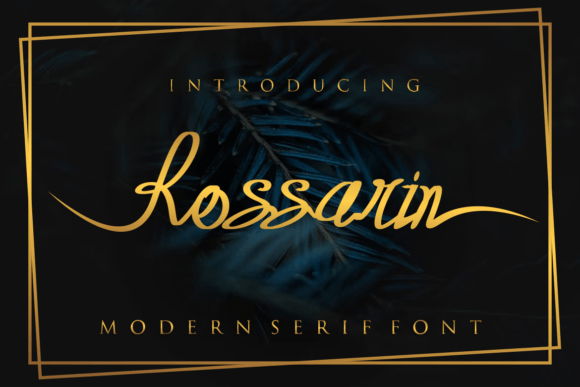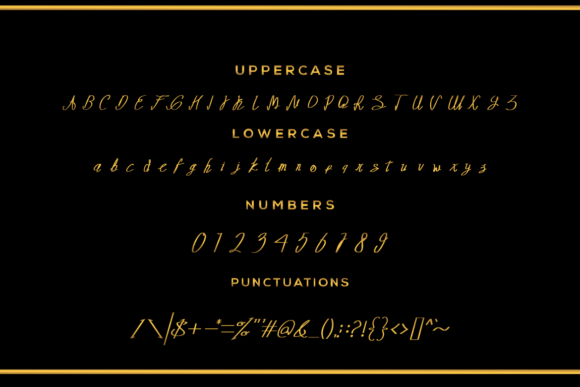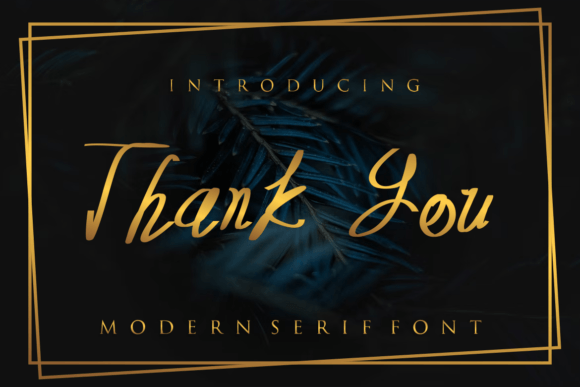
Introduction to Rossarin Font
Rossarin is a modern and trendy handwritten font with a cool vibe.
Key Features of Rossarin Font
Why Choose Rossarin Font?
Rossarin Font offers exceptional quality and versatility, making it a valuable addition to your design toolkit. Whether you’re creating for personal projects or commercial use, Rossarin Font delivers professional results.